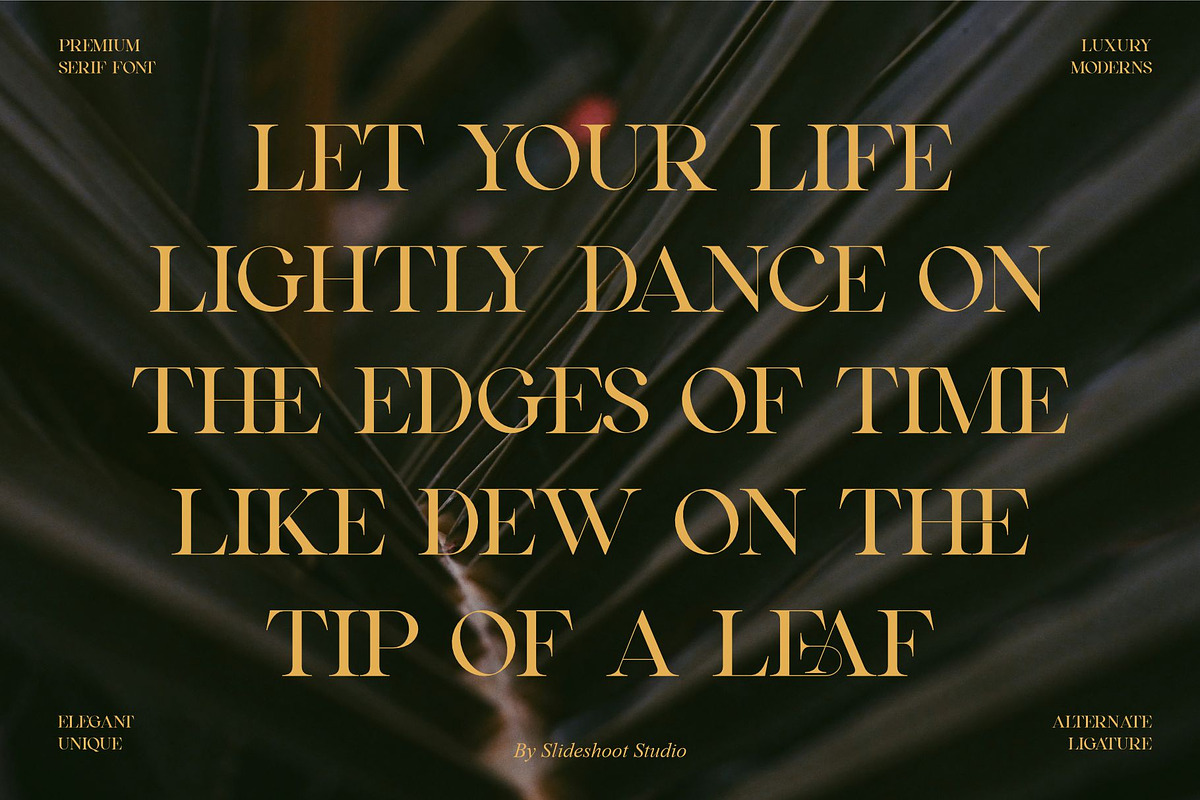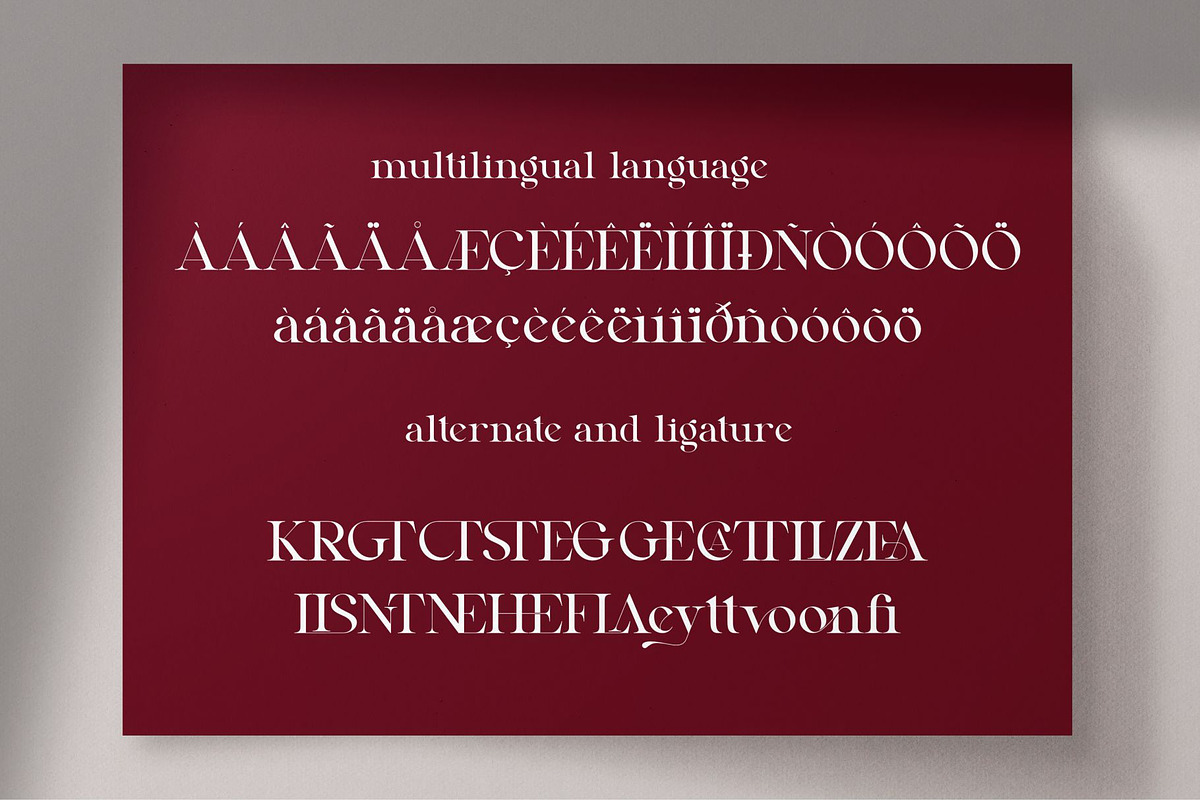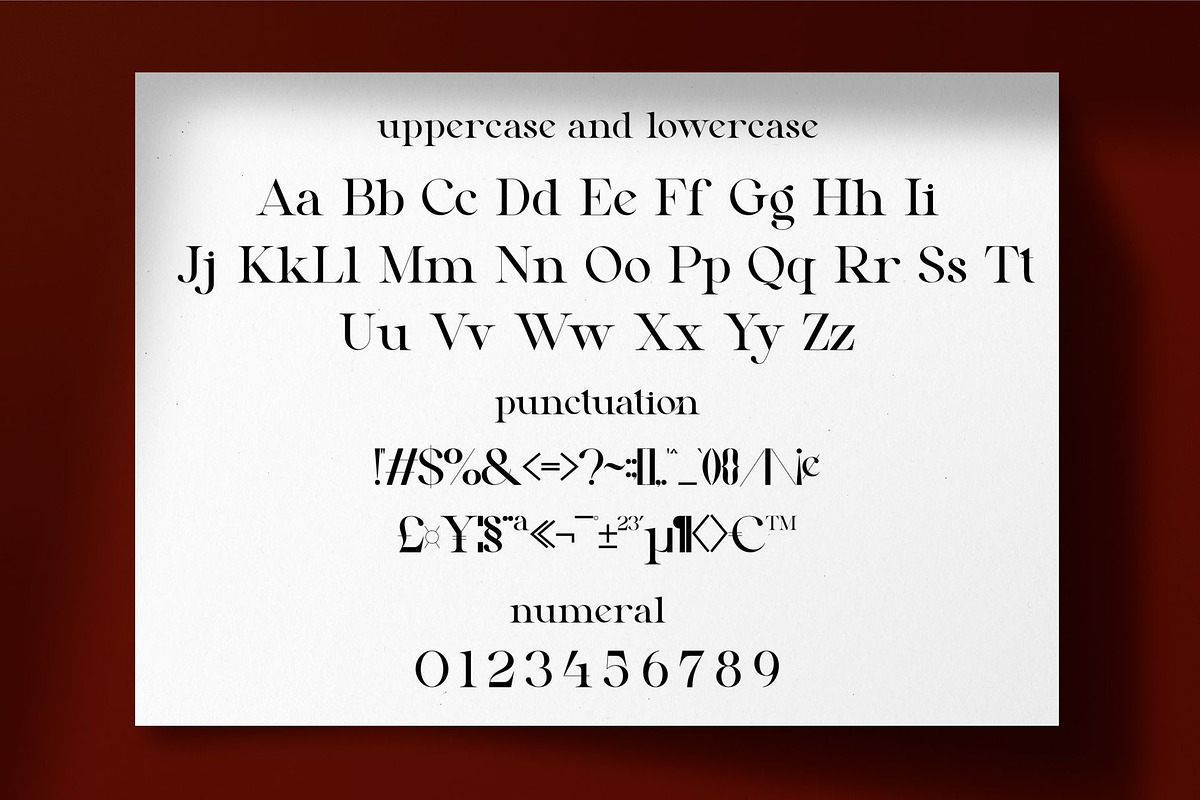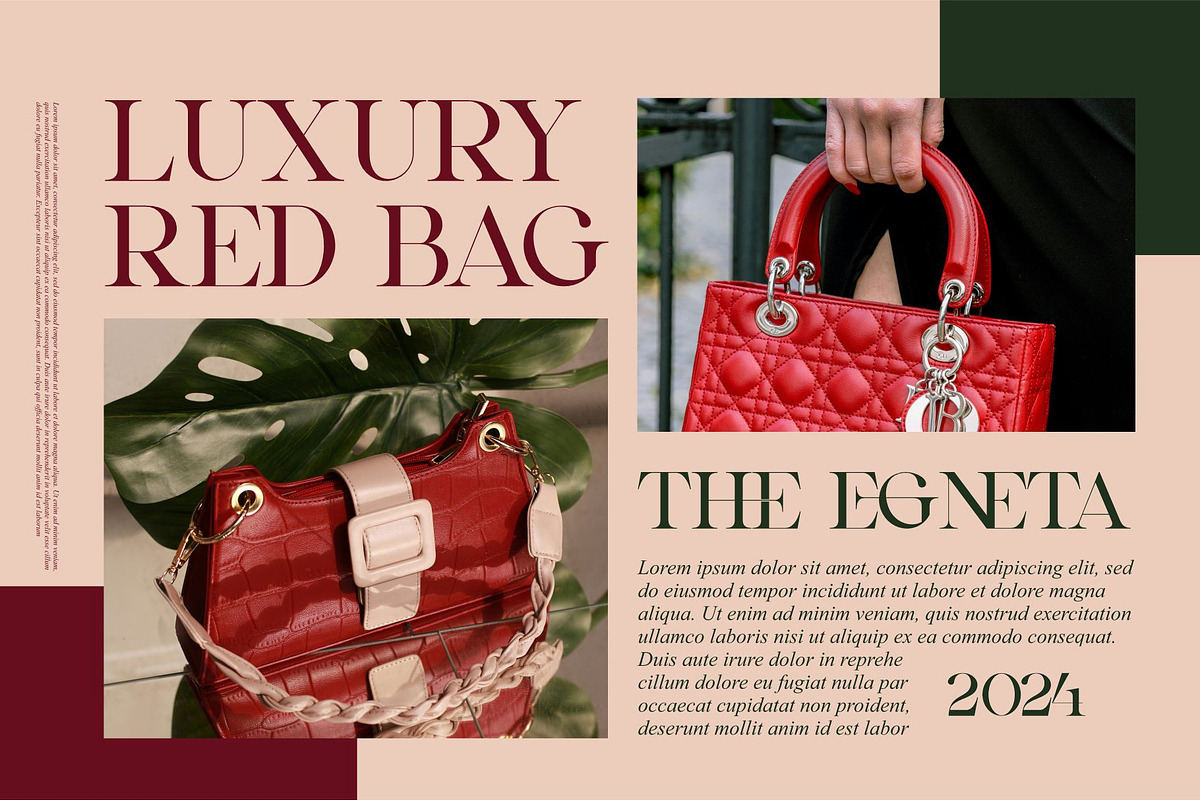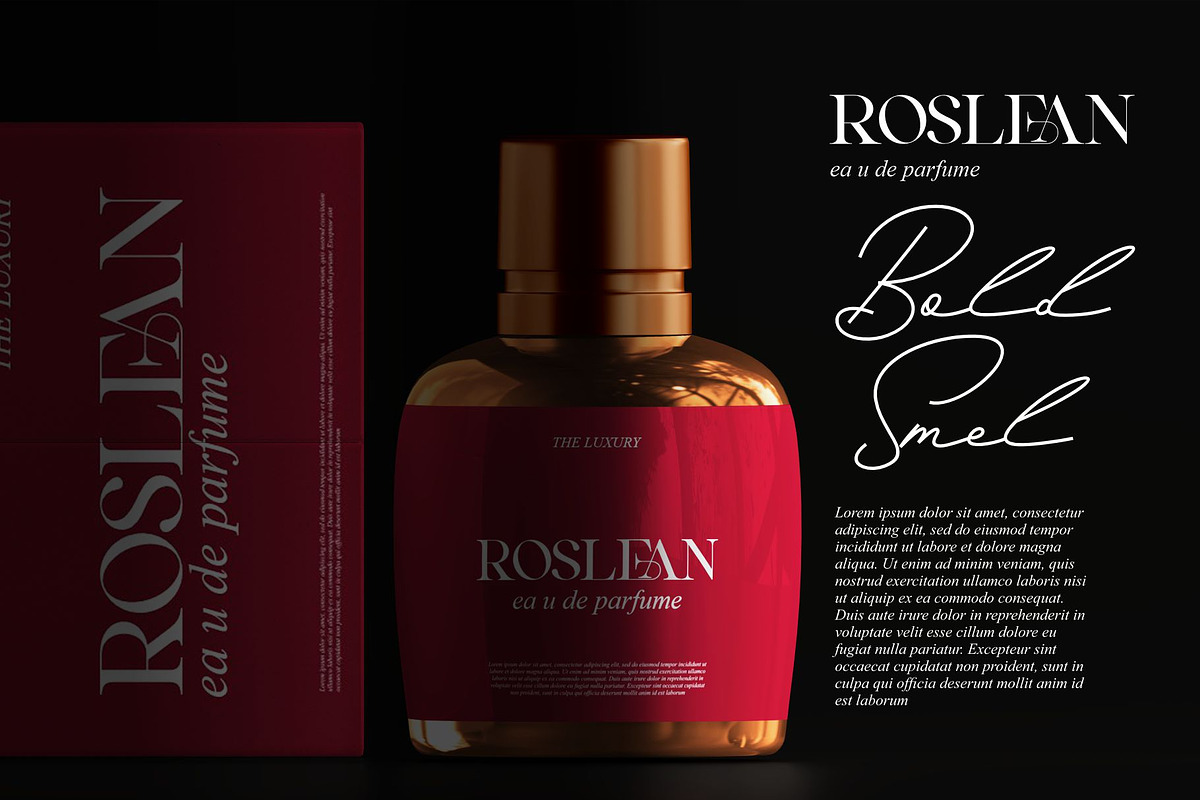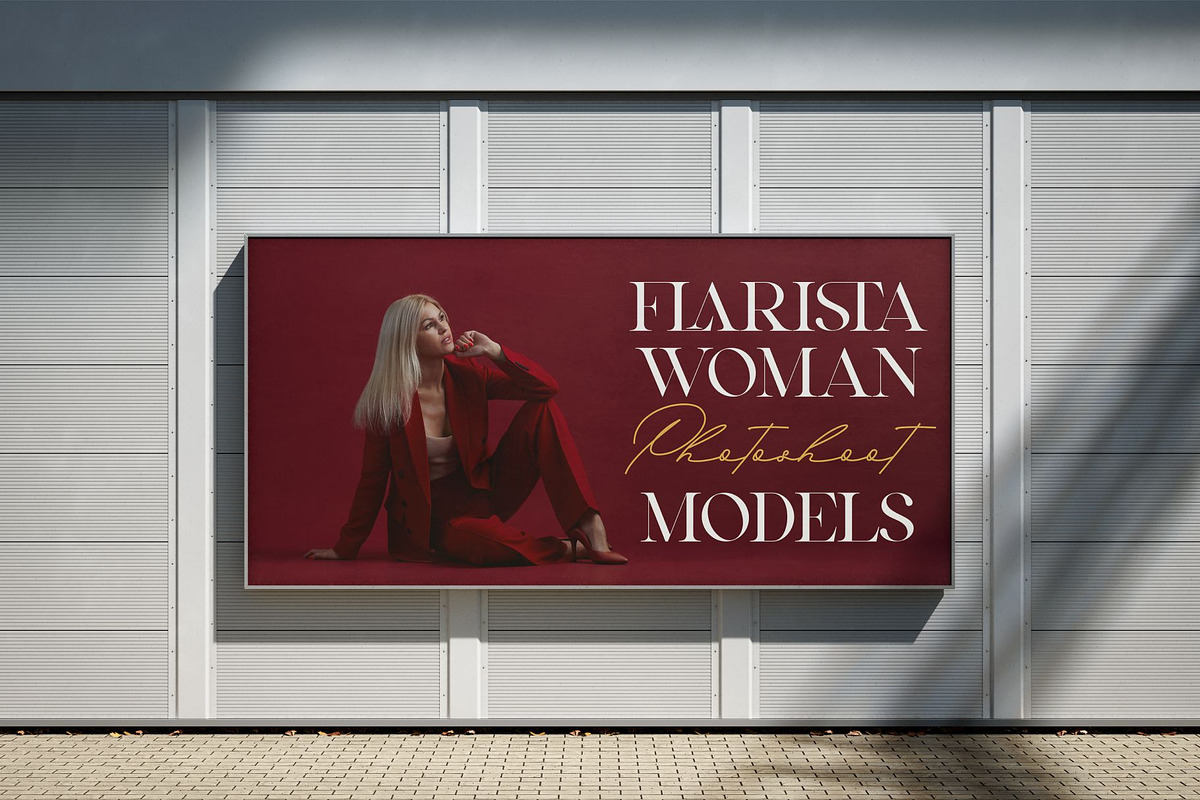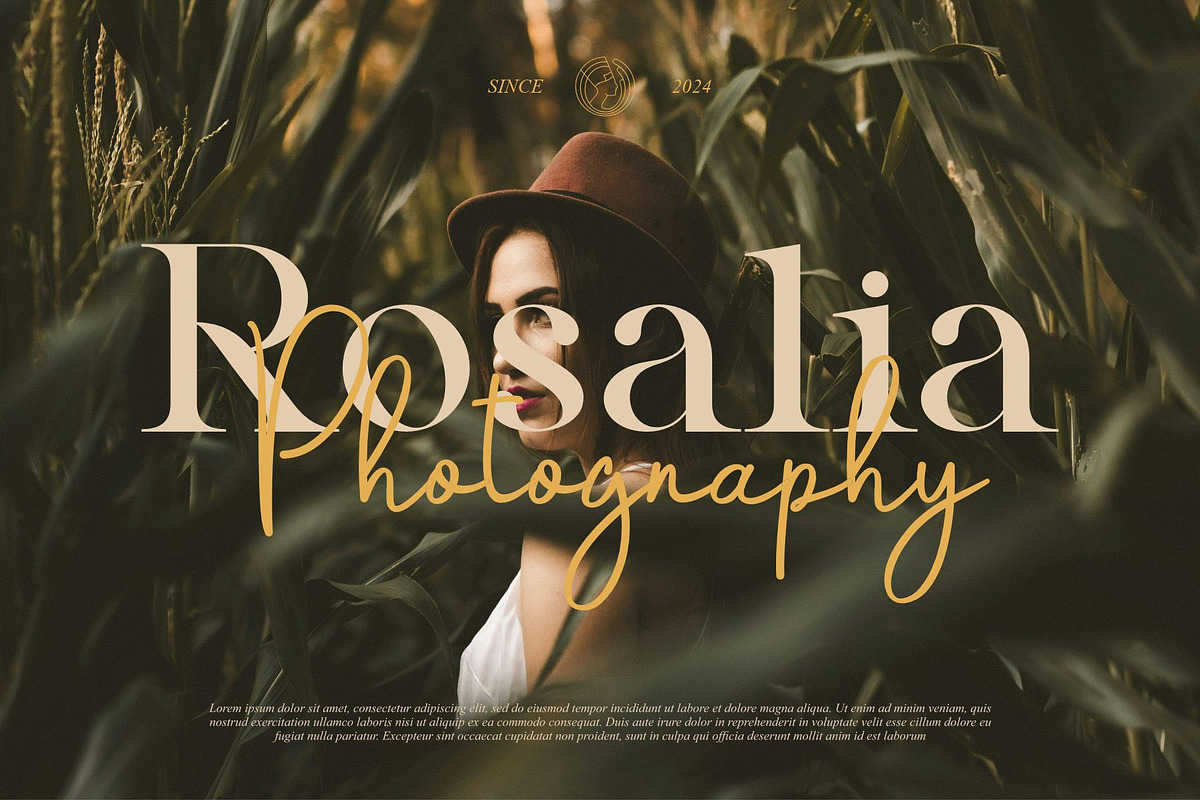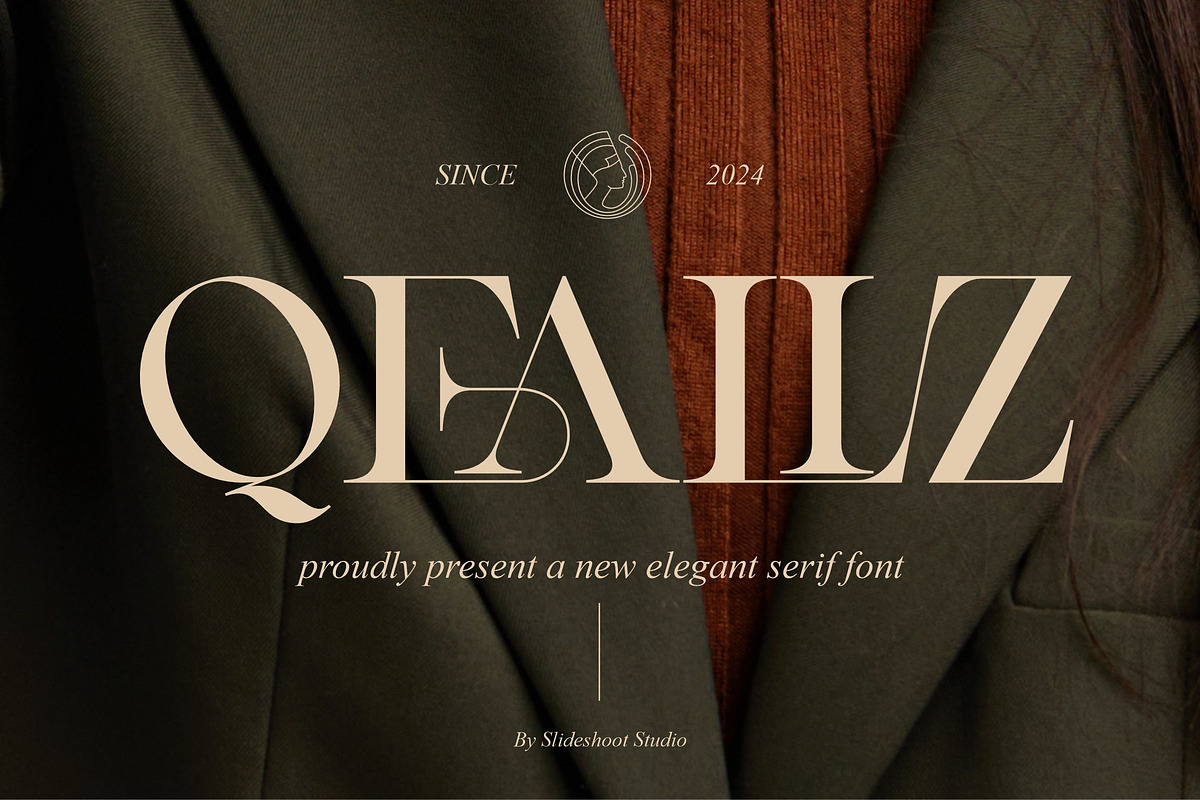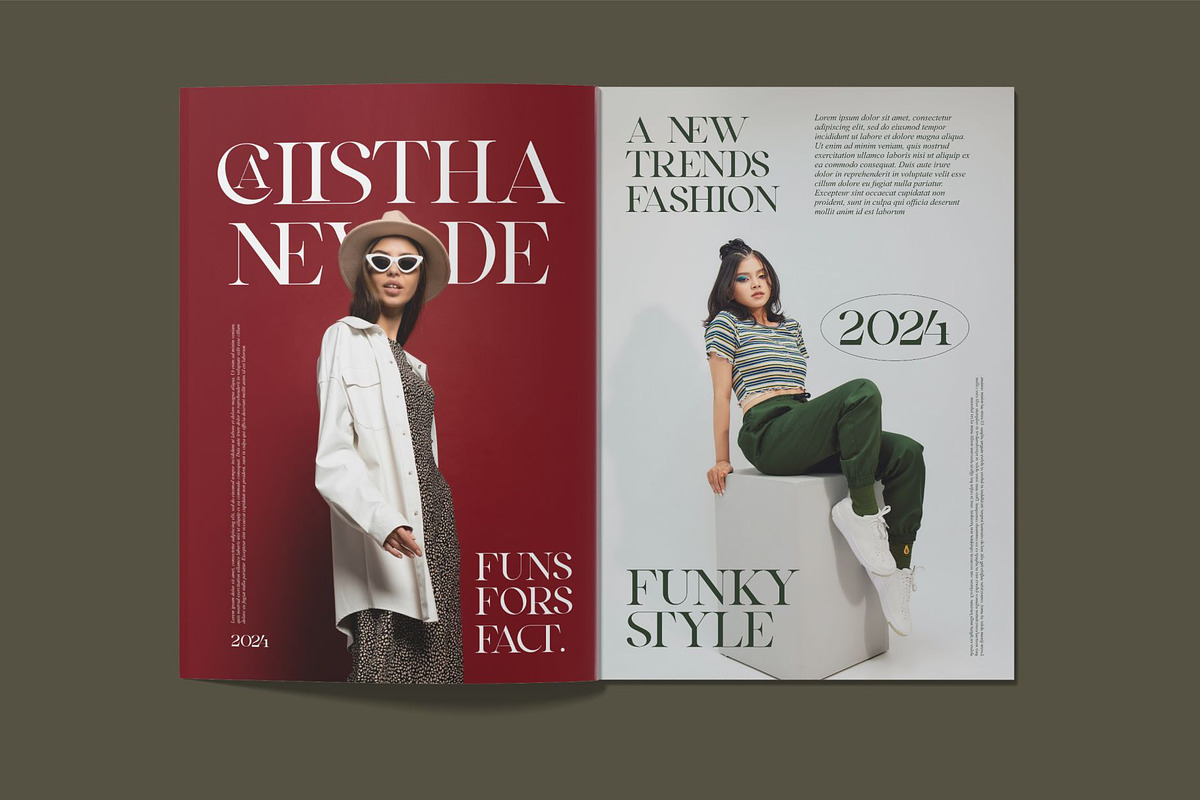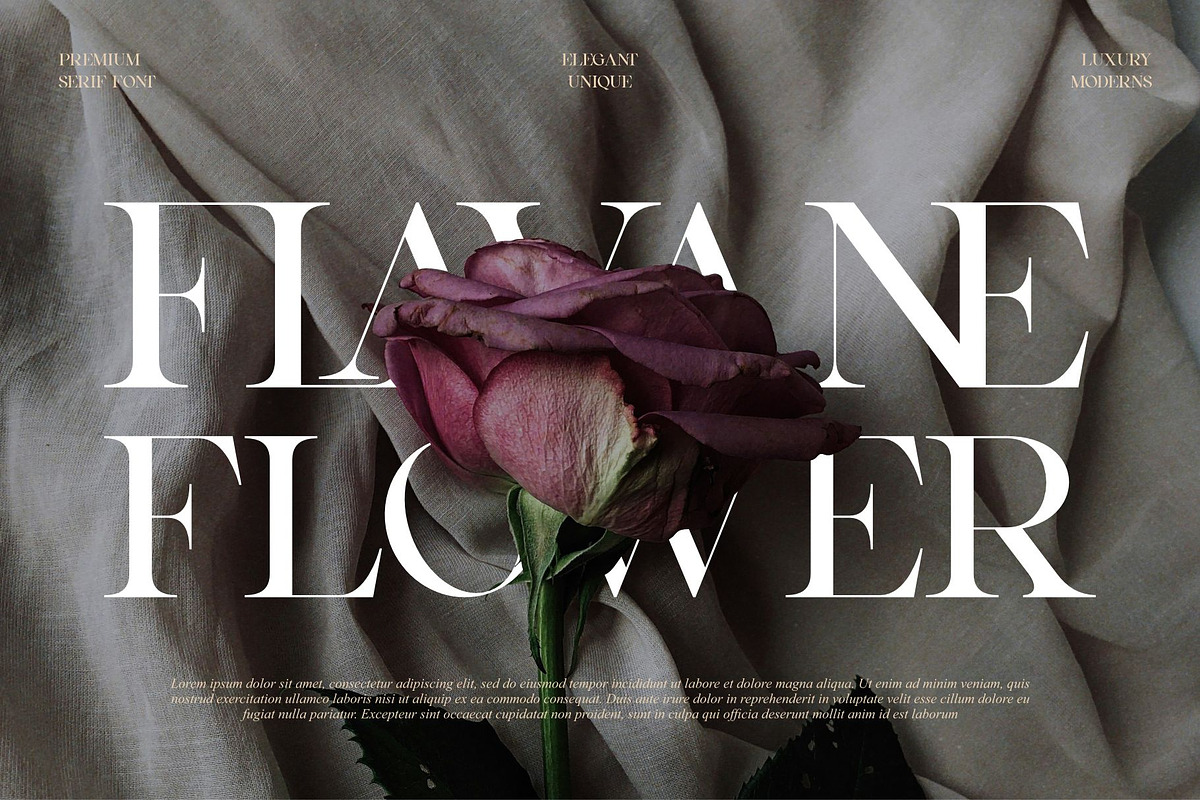
Qealiz || Elegant Serif Font
Qealiz is a serif font that exudes luxury and elegance. It draws attention and enhances any design. It is perfect for invitation card designs, company logos, movie titles, movie names, business cards, book titles, brand names, and many other designs. Qealiz is an elegant serif font that exudes sophistication and cohesion. Its stylish inflections and ligatures make it a perfect partner for any project.